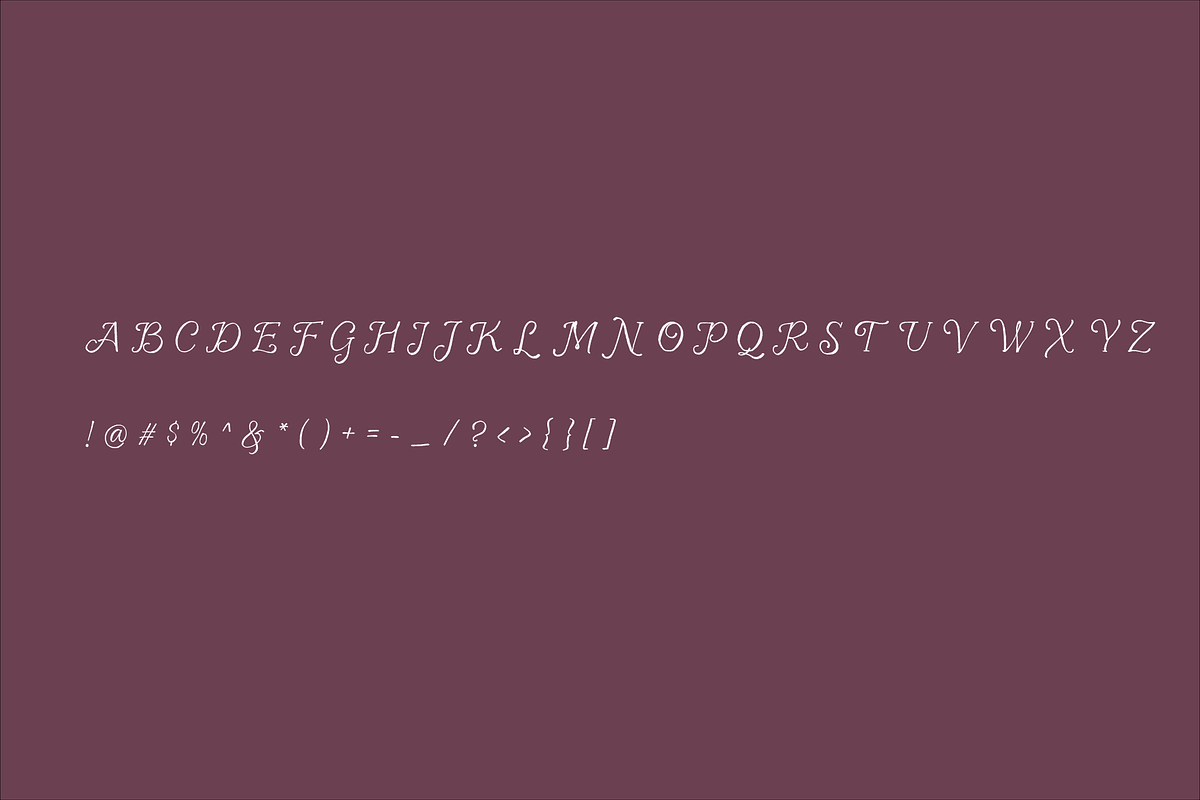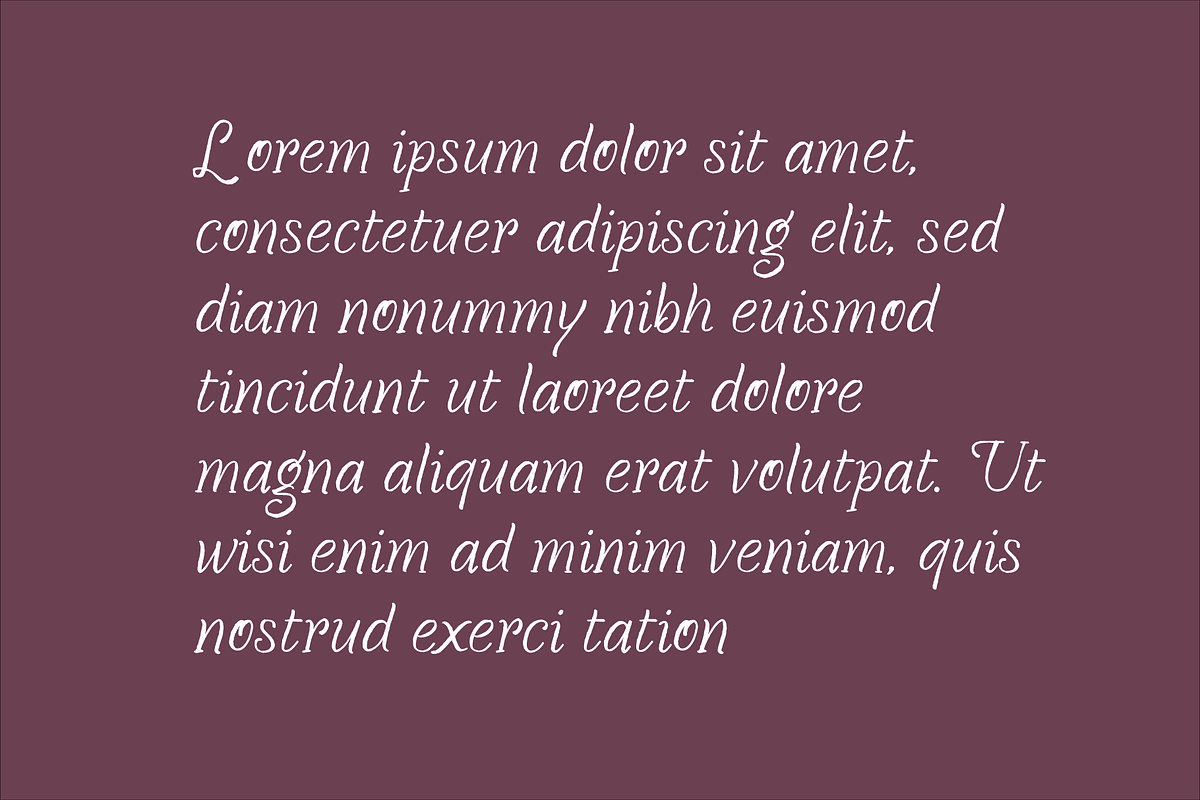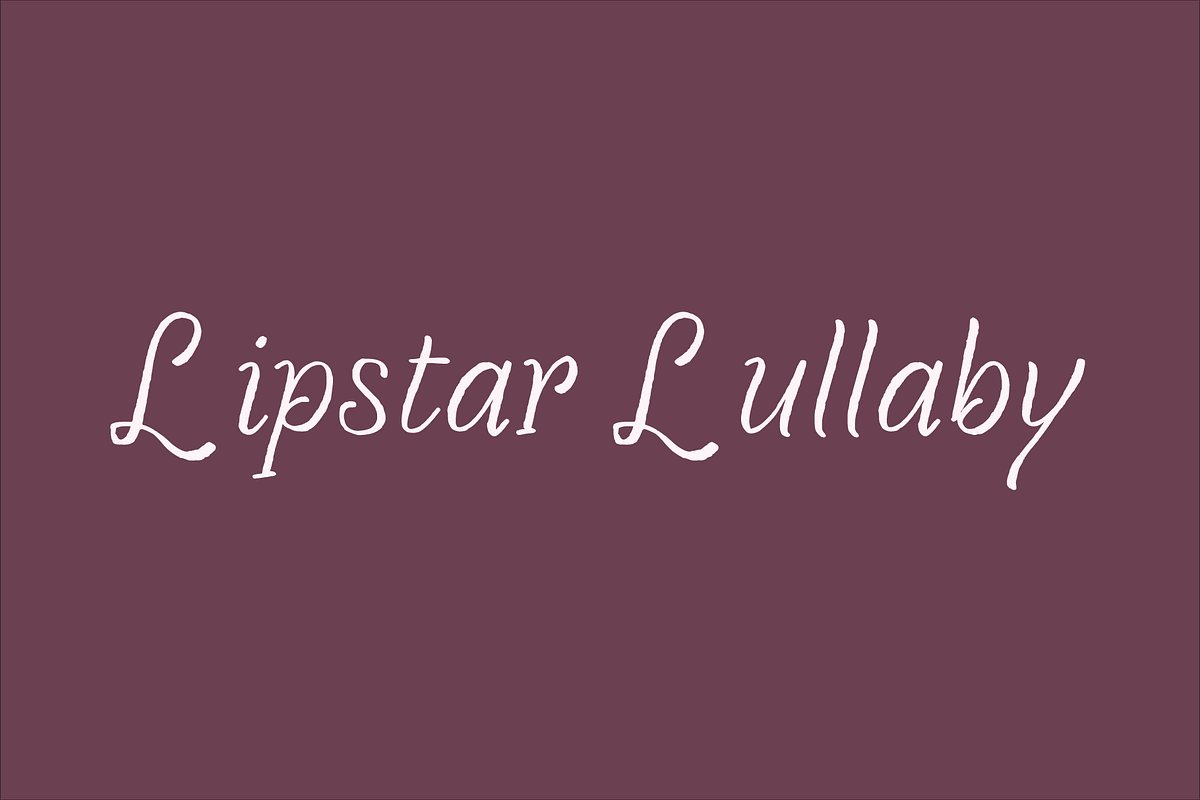
Lipstar Lullaby
Handcrafted casual script featuring playful curves, alternates, and multilingual support.
Casual handwritten display font.
250+ Glyphs including numbers and punctuation.
Includes stylistic alternates and ligatures for a natural look.
Comprehensive multilingual support.
Kids' creations, nursery branding, and children's books.
Handmade product packaging (skincare, soaps, candles).
Wedding invitations and charming event stationery.